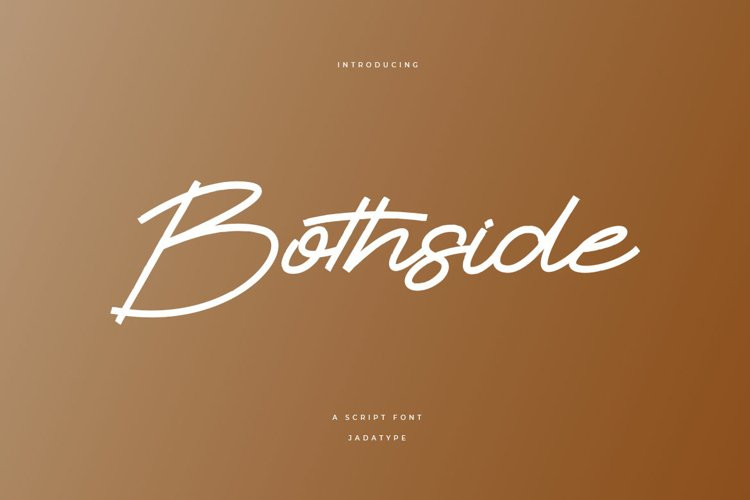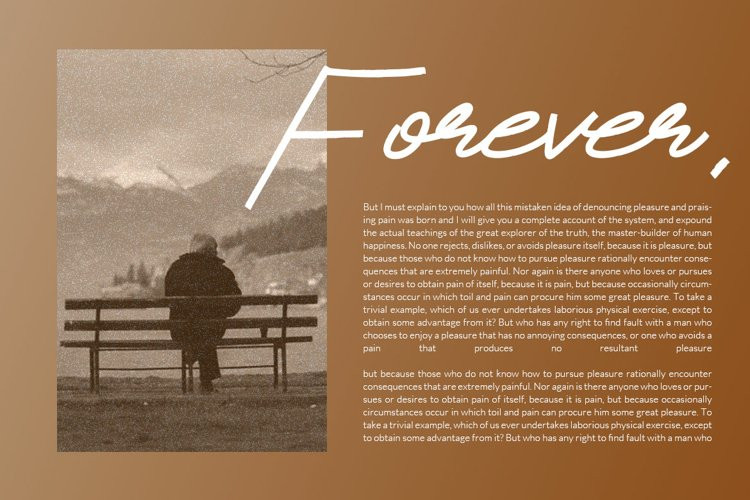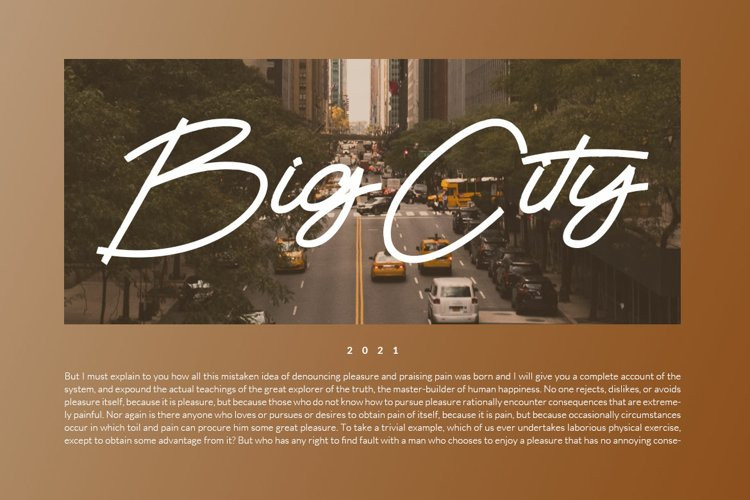
Bothside Font
Bothside is a script font with a soft brush. suitable for use in handicrafts, social media needs, graphic design, branding, simple writing, and others. contains standard English letters and some that support multilingual. can be installed in applications such as adobe family and affinity.